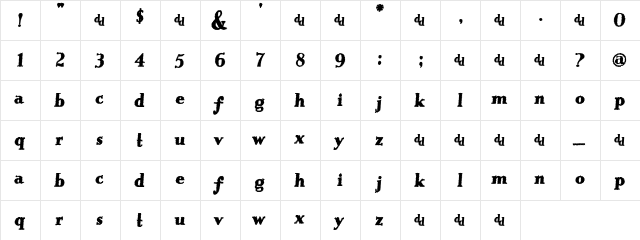
Fireball Regular
Design Context for Fireball Typeface
Fireball offers clean, dependable letterforms without strong stylistic allegiance, making it a practical choice for designers who need flexibility.
Pro Tip: Use Fireball in both headline and body roles to test its range before committing to a single application.